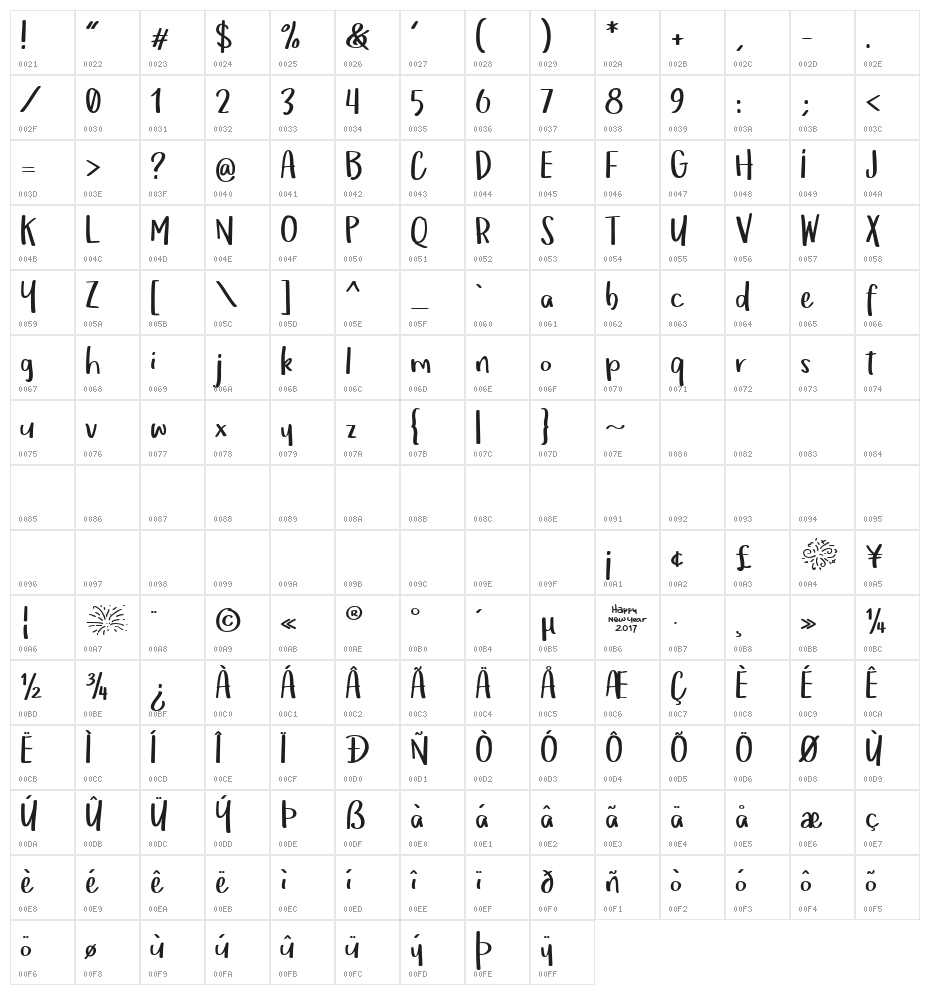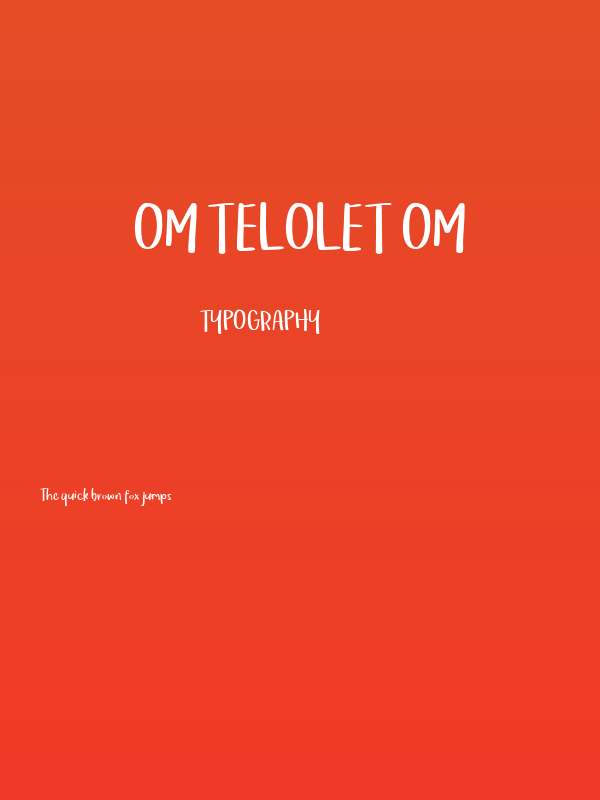
Om Telolet Om Font
Om Telolet Om Description
This playful and energetic font features a handwritten style with a casual and friendly appearance. The letters are slightly irregular, adding a sense of movement and personality. The uppercase characters are bold and tall, while the lowercase letters maintain a consistent flow with rounded edges. Numbers and special characters follow the same lively style, making this font versatile for various creative projects. The overall design is approachable and modern, perfect for capturing attention in a fun way.
| Use Case | Headlines, Logos, Social media graphics |
| Proposed Projects | Ideal for children's books, greeting cards, playful branding, and social media graphics. |